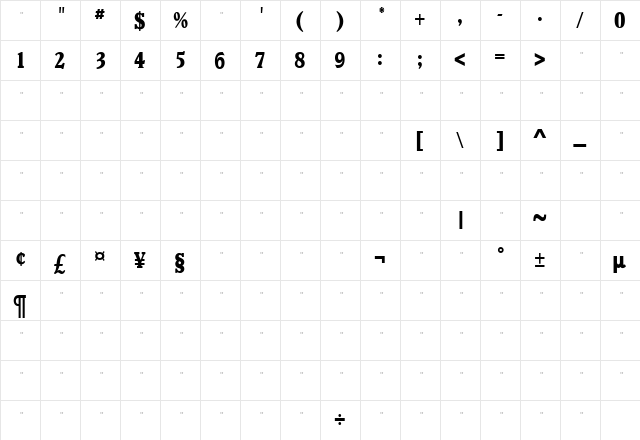
VeroneseExtraBoldCondensedTab Medium
Design Context for VeroneseExtraBoldCondensedTab
VeroneseExtraBoldCondensedTab is a composed and adaptable typeface that performs quietly and consistently across a wide range of design contexts. Its bold stroke weight gives it real presence on the page. Its narrow stance lets it pack a punch even in space-constrained designs.